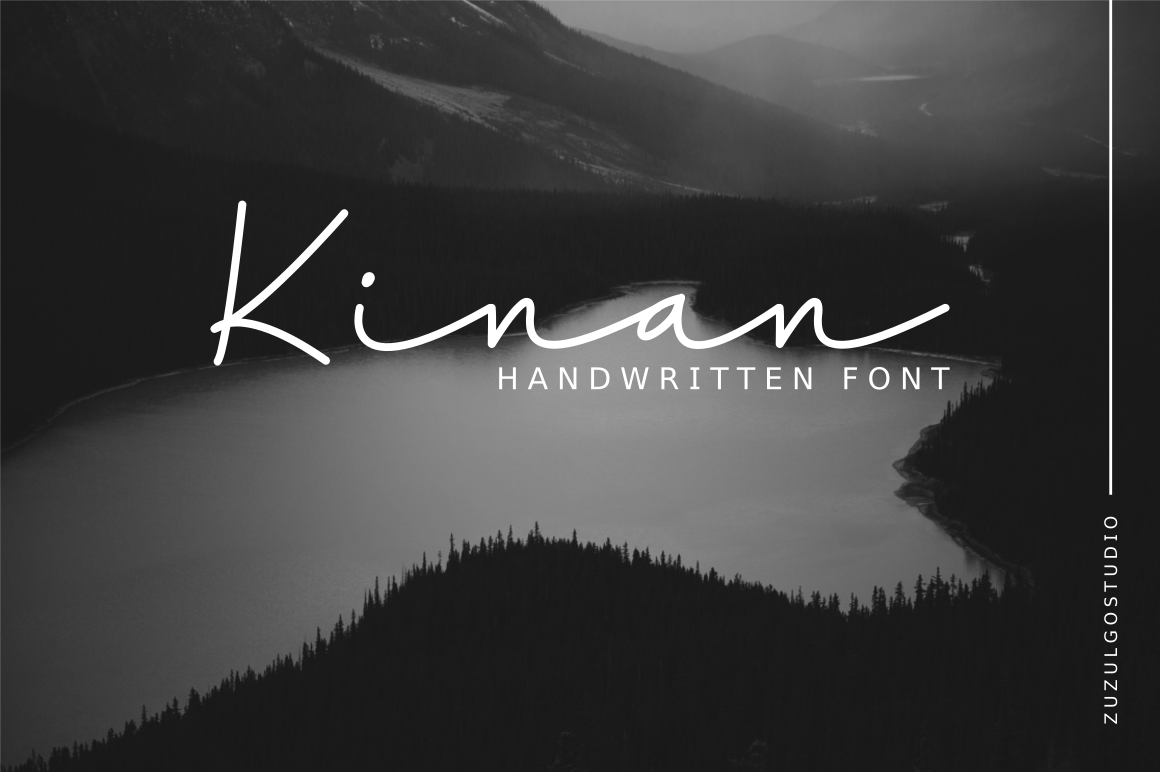
Kinan Script Font
Kinan is a fresh monoline script font, suitable for use in a wide range of project types. This font is a great way to add a touch of refinement and modernity as a headline font.
- Multilingual: ÀÁÂÃÄÅÆÇÈÉÊËÌÍÎÏÐÑÒÓÔÕÖØÙÚÛÜÝàáâãäåæçèéêëìíîïñòóôõöøùúûüýÿ